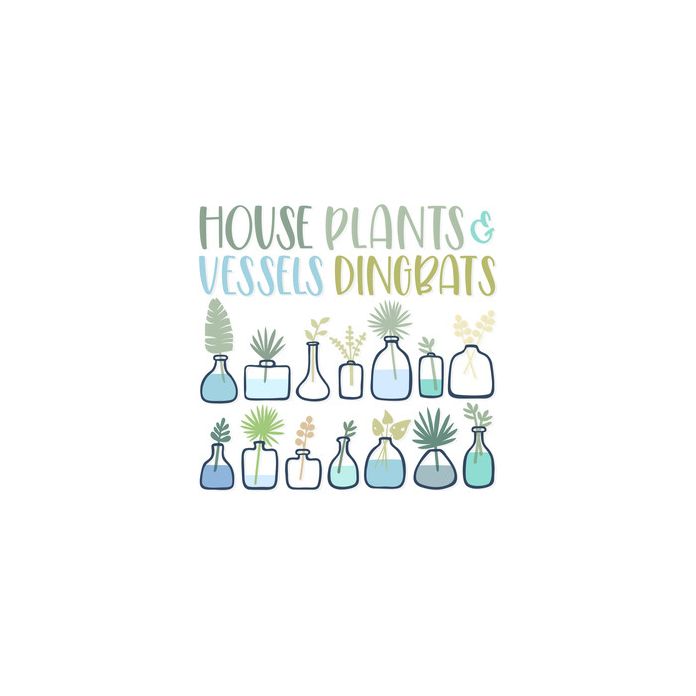
This fun dingbat font has adorable house plant icons that you can type, cut, and assemble. This font includes empty vessels, plants to go inside and water (numbers 0-9) to fill. *Kerning, letting, and baseline may need to be adjusted for desired effect.